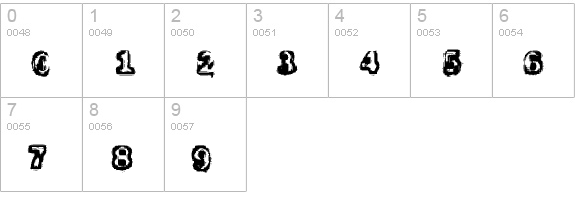
Schizoid Trout Font Details
Introducing the Schizoid Trout font, a mesmerizing and captivating typeface that seamlessly blends elegance with a touch of eccentricity. With its unique and distinctive design, this font is sure to make a bold statement in any creative project. The Schizoid Trout font features a harmonious balance of sharp edges and soft curves, creating a visual masterpiece that effortlessly captures attention. Its fluid strokes and intricate details give each character a sense of movement and dynamism, making it a truly captivating choice for headlines, titles, or any text that needs to leave a lasting impression. But what truly sets the Schizoid Trout font apart is its versatility and adaptability. Whether you're designing a logo, branding materials, packaging, or even a website, this font can effortlessly adapt to any style or concept, adding a touch of sophistication and personality to your project. And the best part? The Schizoid Trout font is available for free! You heard that right. This stunning font can be freely downloaded at FontsMarket.com, enabling you to bring your creative vision to life without any additional cost. Now, you can embrace the beauty and uniqueness of the Schizoid Trout font without breaking the bank. So, why wait? Take your design projects to new heights with the Schizoid Trout font. Download it today and let your creativity soar. Whether you're an experienced designer or just starting your creative journey, this font is the perfect companion to elevate your work and make a lasting impression. Don't miss out on this opportunity to add a touch of elegance and charm to your designs. Get the Schizoid Trout font now, exclusively at FontsMarket.com.